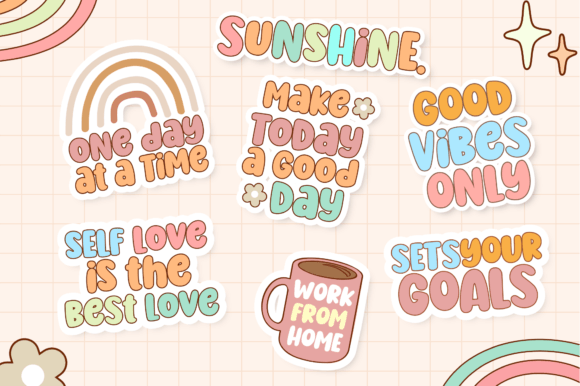
Party Days Font
Party Days is a fun groovy font, inspired by retro bold typography. This font is perfect for a design that requires a playful accent. Party Days is suitable for book covers, posters, packaging, merchandise, logotype, and much more.